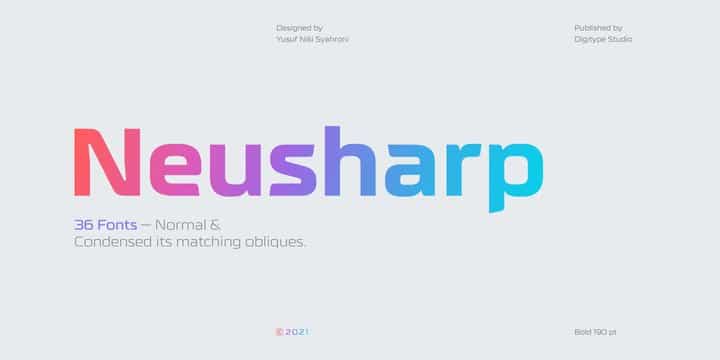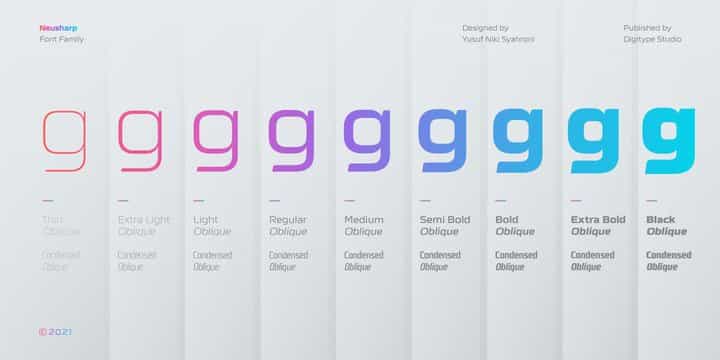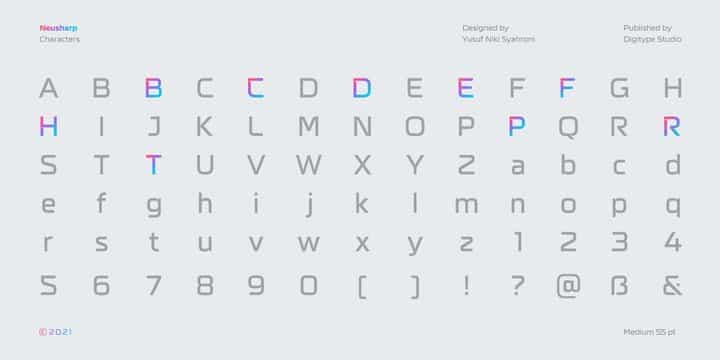
Neusharp is an impressive sans serif typeface with an angular form, perfect for making your work stand out and be more captivating. The font family features 36 fonts of various styles and weights to help give your work its own special character and flare. There are endless opportunities available to make your work truly distinctive and captivating!